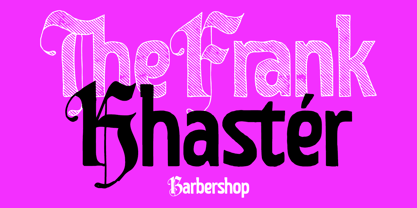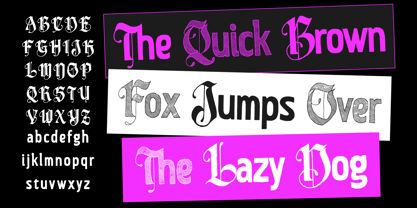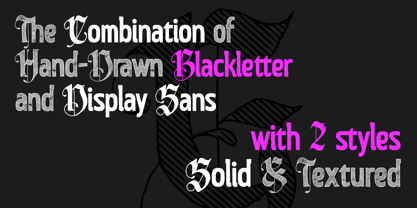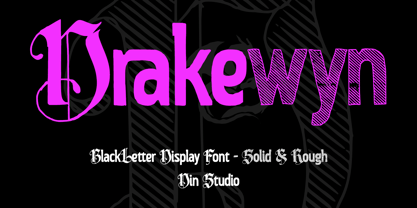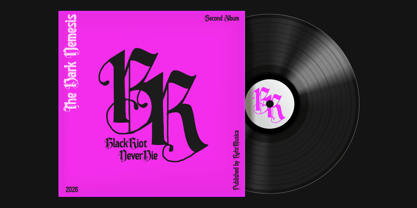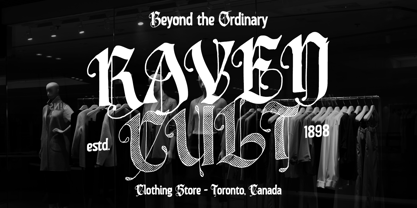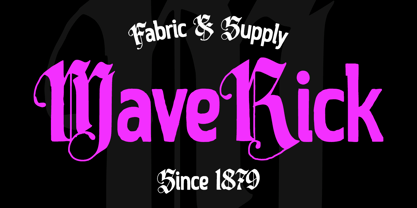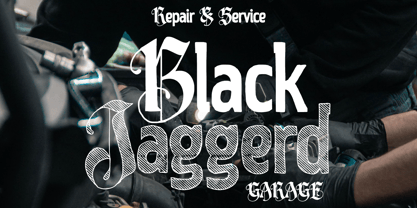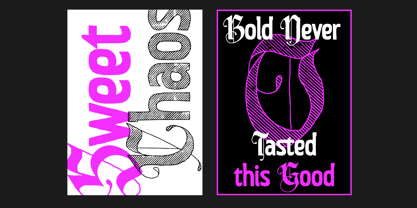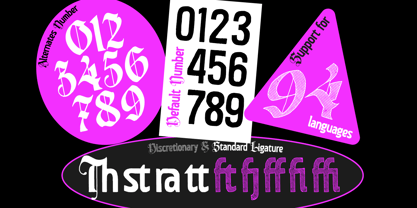
Drakewyn
Die Schriftfamilie Drakewyn wurde von Donis Miftahudin entworfen und von Din Studio veröffentlicht. Drakewyn enthält 2 Stile und Familienpaketoptionen. Mehr über diese Familie
Drakewyn is a powerful blackletter display font. Designed to make an immediate visual impact, Drakewyn shows strong strokes and distinctive details. What makes Drakewyn especially versatile is its availability in two distinctive versions: Solid and Rough. The Solid version delivers a cleaner and more polished blackletter appearance. Meanwhile, the Rough version introduces a distressed and textured finish, giving your designs a more authentic handcrafted, vintage, and rebellious character. In addition, enjoy the features here.
Din Studio is a type design studio founded by Donis Miftahudin in 2017. The studio focuses on creating unique and visually appealing script and display fonts that stand out in the industry. Donis Miftahudin is a well-known type designer in the industry and has created several popular fonts under the Din Studio brand.The fonts designed by Din Studio are characterized by their distinct style and aesthetic appeal. The studio's designs often incorporate unique elements, such as intricate ligatures and swashes, to create fonts that are not only visually stunning but also highly functional. The studio's fonts are often used in a variety of applications, including branding, advertising, and editorial design.Din Studio's fonts are highly regarded in the design community and have received recognition from industry publications and organizations. The studio has been featured in several design blogs and magazines, and its fonts have won awards at prestigious design competitions.One of the hallmarks of Din Studio's work is its commitment to innovation and experimentation. The studio is constantly exploring new techniques and approaches to type design, pushing the boundaries of what is possible in the field. This dedication to innovation has helped Din Studio establish itself as one of the most exciting and influential type design studios in the industry.Overall, Din Studio is a dynamic and innovative type design studio that is pushing the boundaries of what is possible in the field. With its focus on unique and visually appealing script and display fonts, the studio is poised to continue making a significant impact in the design community for years to come.